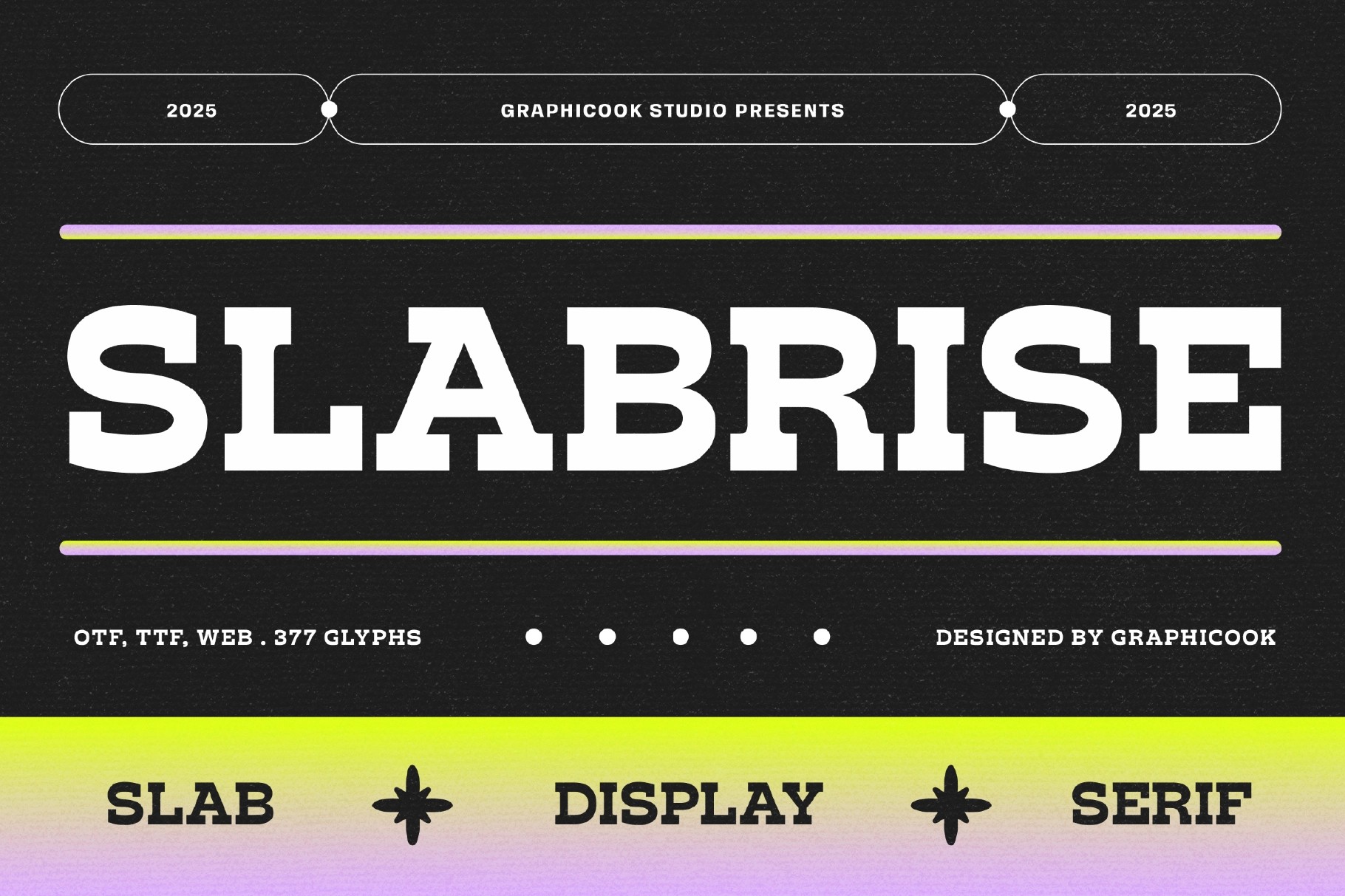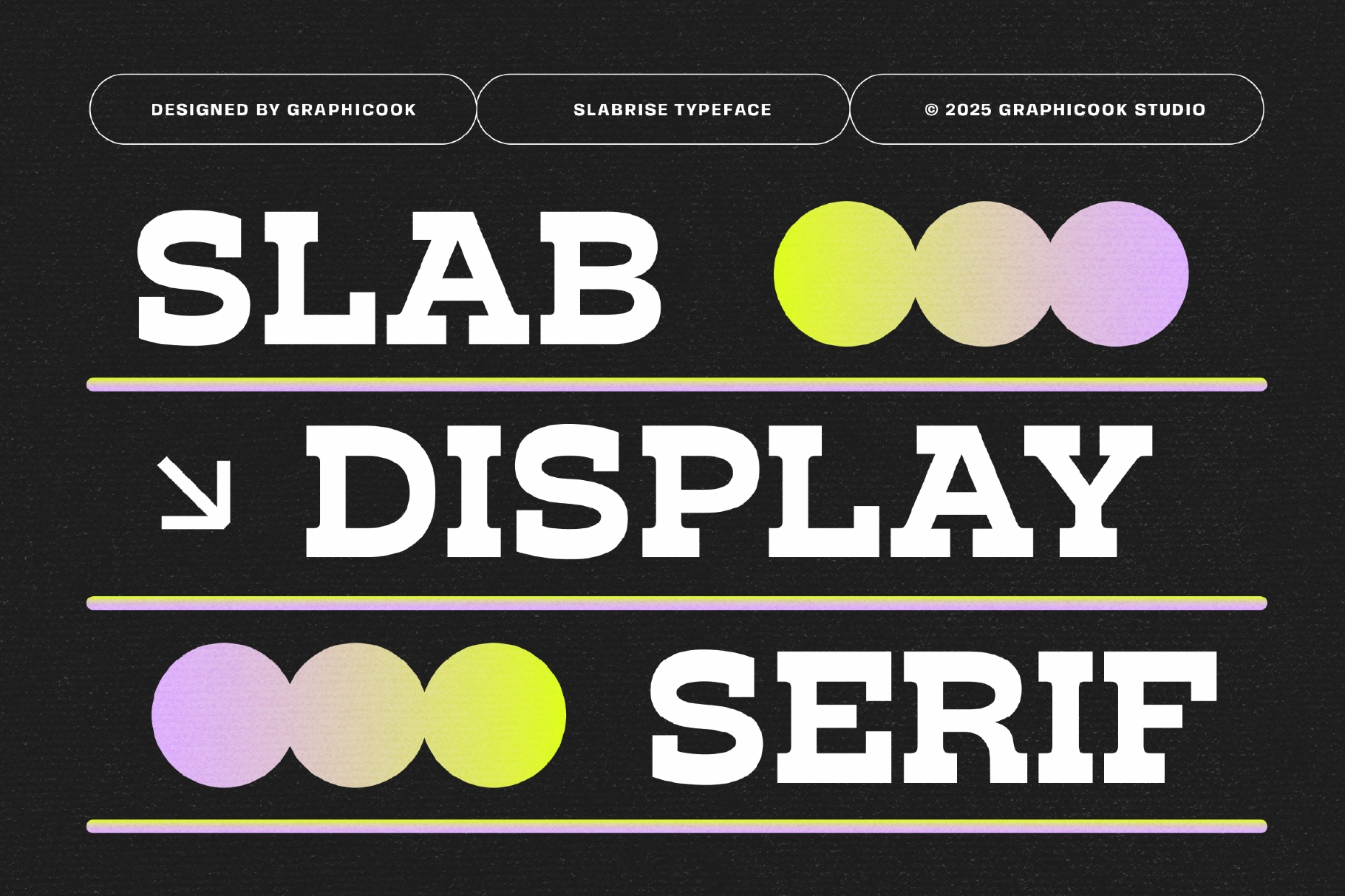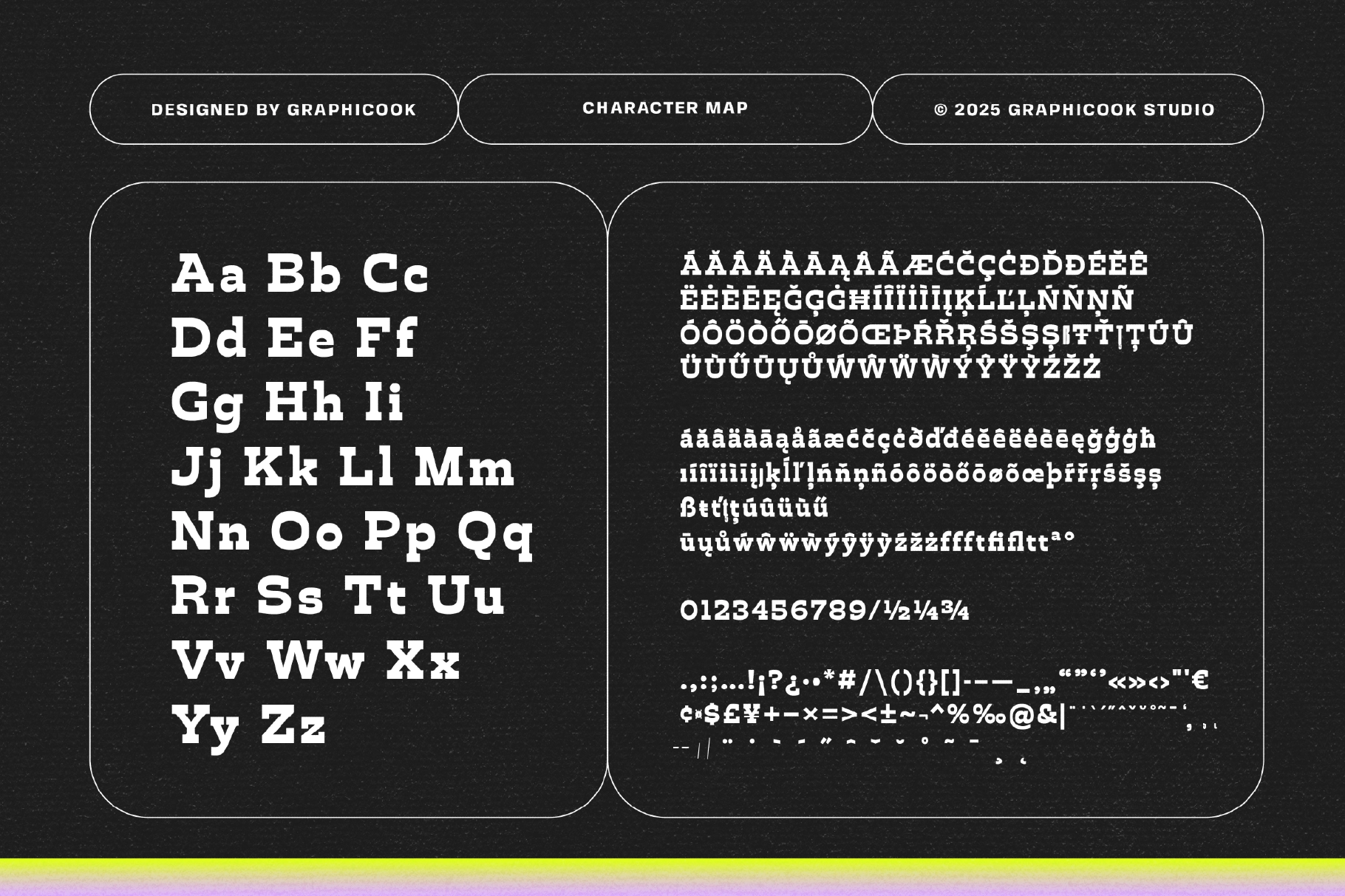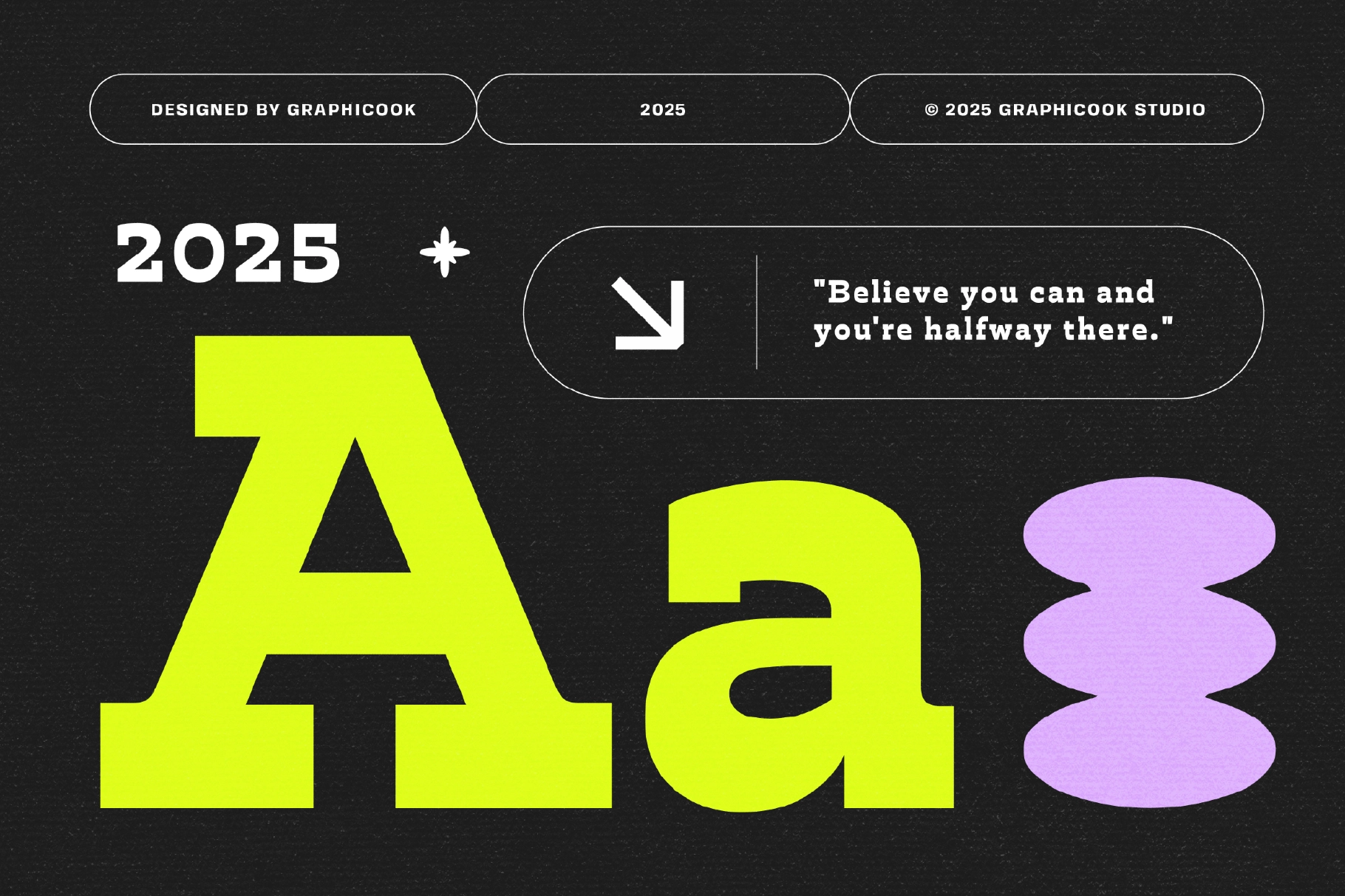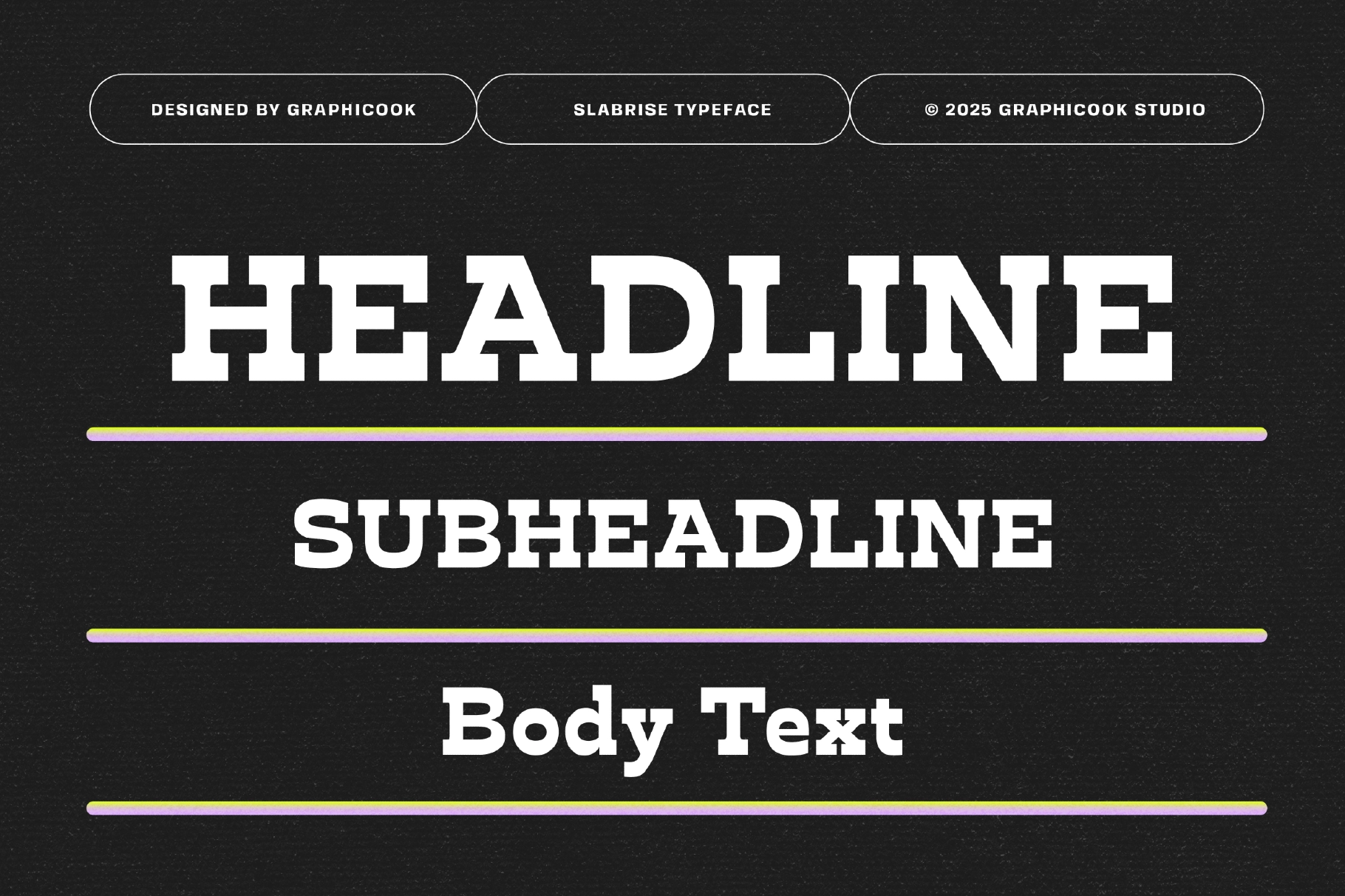
Slabrise Font
Slabrise
Slabrise is a slab-serif font styled with a modern touch, offering a serious yet visually appealing impression. It’s ideal for headlines, logos, or designs with a retro-modern aesthetic.